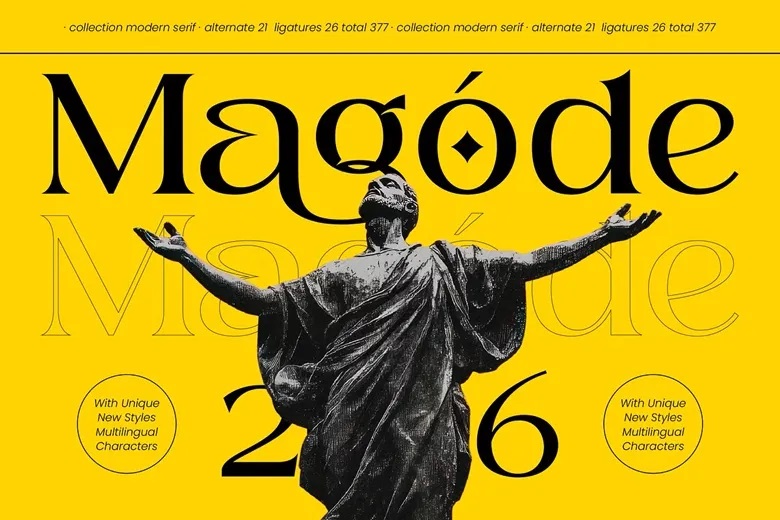
Magode Font
Magode Font combines the timeless style of traditional serifs with a bold, modern look. Its high-contrast strokes and clean shapes stand out, making your headlines and titles look polished and high-quality. Magode Font works well for luxury branding, high-end packaging, and editorial design where elegance matters most.
It is a great fit for fashion magazines, upscale brands, and premium product labels that want a unique and refined look.
Magode Serif Font